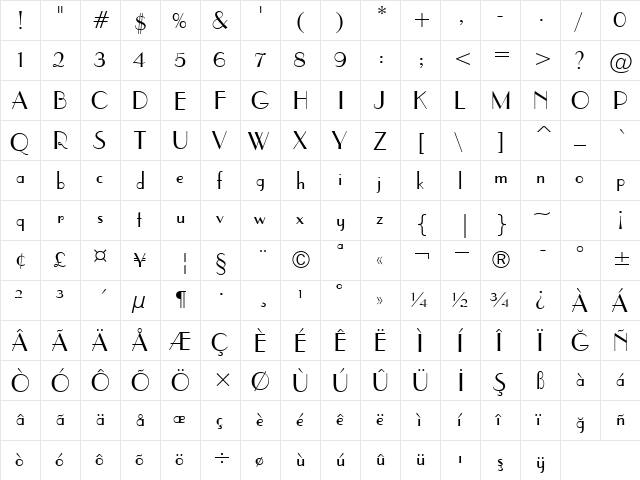
00524 Regular
Design Context for 00524 Typeface
00524 is a composed and adaptable typeface that performs quietly and consistently across a wide range of design contexts.